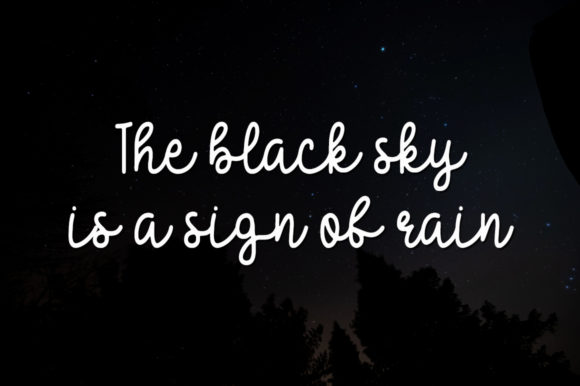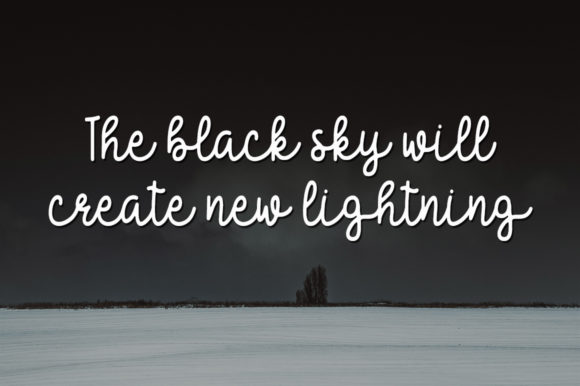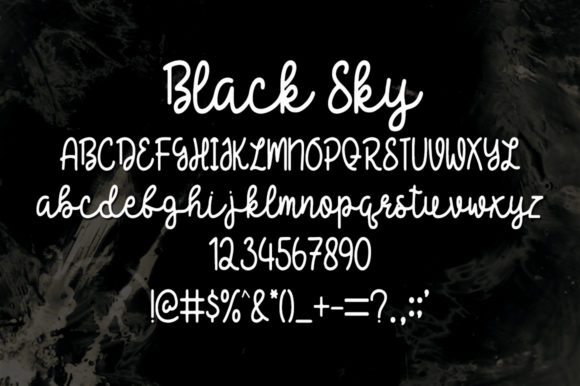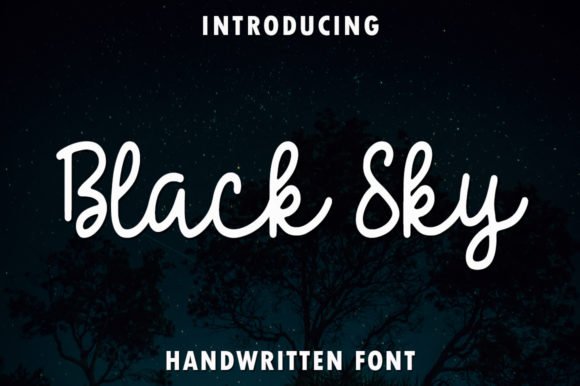
Introduction to Black Sky Font
Black Sky is a sweet and delicate handwritten font.
Dainty and joyful, this font will be ideal for writing wedding invitations, cards or any other design that may need a romantic, personalized touch .
Black Sky Font offers exceptional quality and versatility, making it a valuable addition to your design toolkit. Whether you’re creating for personal projects or commercial use, Black Sky Font delivers professional results.